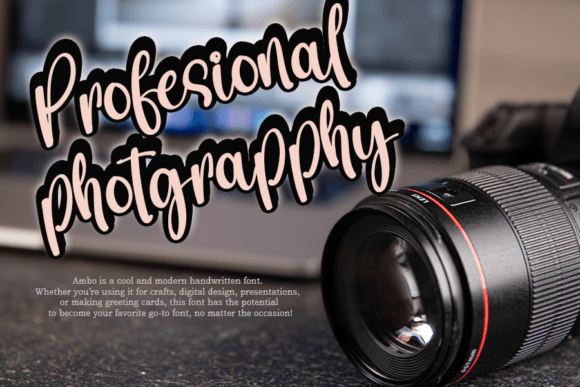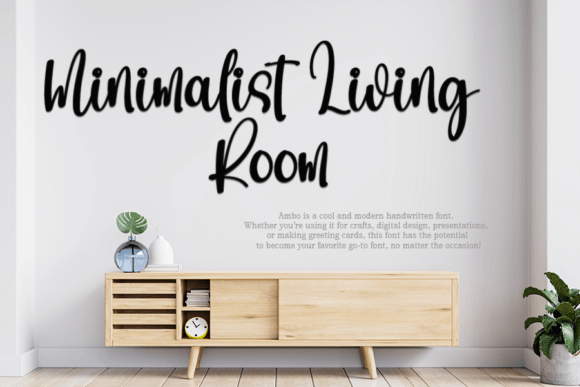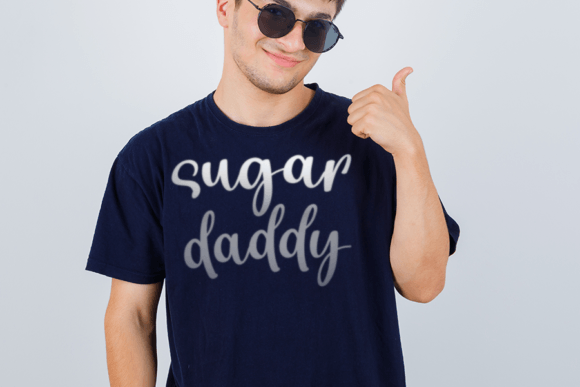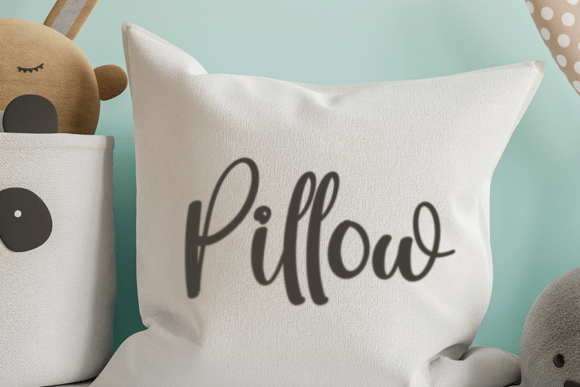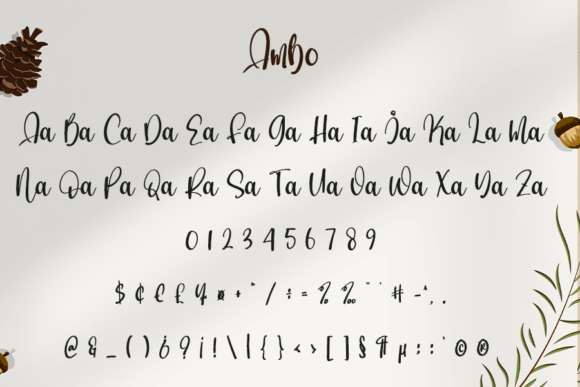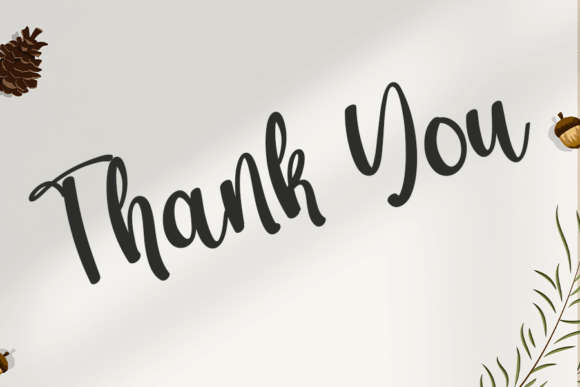
Introducing Ambo Font: Elevate Your Designs with Elegance and Class
In the world of typography, fonts play a crucial role in conveying the tone and personality of a design. For designers and crafters seeking to add a touch of sophistication and elegance to their projects, Ambo Font is an excellent choice. This trendy handwritten font boasts a contemporary atmosphere and impeccable form, drawing inspiration from timeless classic calligraphy.
The Inspiration Behind Ambo Font
Ambo Font is rooted in the rich tradition of calligraphy, with a modern twist that sets it apart from more traditional fonts. Its creator aimed to capture the essence of classic calligraphy while infusing it with a fresh, modern vibe. The result is a font that exudes elegance and refinement, making it perfect for a wide range of design applications.
Key Features of Ambo Font
• Trendy and Contemporary: Ambo Font features a modern, handwritten style that adds a touch of sophistication to any design.
• Impeccable Form: The font’s precise and clean lines ensure that it remains legible and visually appealing, even at smaller sizes.
• Elegant and Classy: Ambo Font’s classic calligraphy inspiration lends an air of refinement and luxury to your designs.
• Versatile: Suitable for a wide range of projects, from branding and advertising to packaging and digital media.
Uses of Ambo Font
Ambo Font’s versatility makes it an excellent addition to any designer’s toolkit. Here are some ideas for using this beautiful font:
• Branding and Logo Design: Create a lasting impression with Ambo Font’s elegant and sophisticated style.
• Wedding and Event Planning: Add a touch of luxury and refinement to wedding invitations, programs, and other event materials.
• Packaging Design: Elevate your product packaging with Ambo Font’s classy and contemporary style.
• Digital Media: Use Ambo Font in social media graphics, blog posts, and website headers to add a touch of elegance and sophistication.
Tips for Using Ambo Font Effectively
To get the most out of Ambo Font, consider the following tips:
• Pair with Contrasting Fonts: Combine Ambo Font with a clean, sans-serif font to create visual interest and hierarchy.
• Experiment with Colors: Try Ambo Font in different colors to find the perfect match for your brand or design.
• Pay Attention to Spacing: Ensure that your text is easy to read by adjusting the spacing and kerning to suit your design.
Ambo Font is a stunning addition to any designer’s collection, offering a unique blend of classic calligraphy and modern style. With its impeccable form, elegant appearance, and versatility, this font is sure to elevate your designs and add a touch of sophistication. Whether you’re working on a branding project, wedding invitation, or digital media, Ambo Font is an excellent choice.